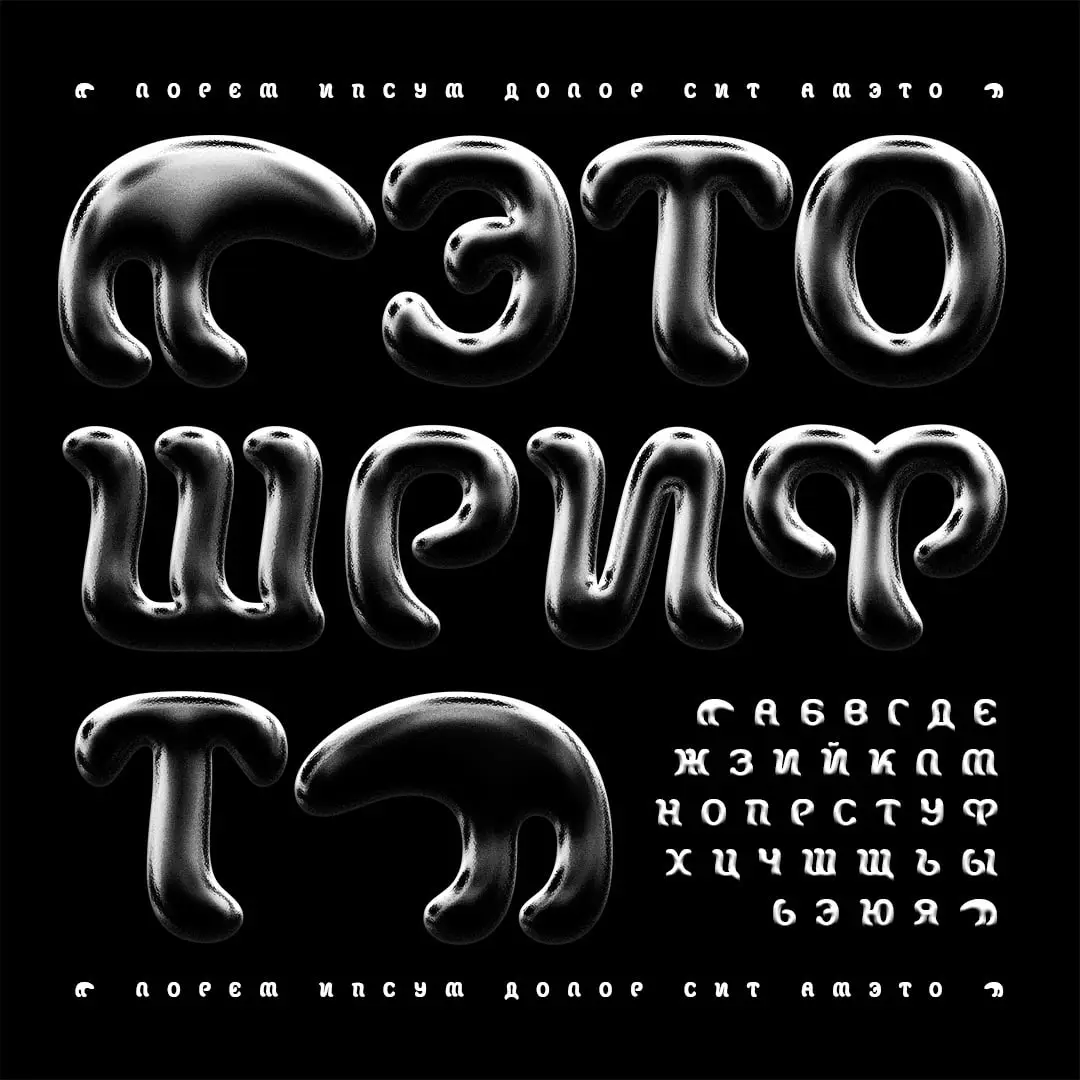
This Is Font is a versatile typeface designed to elevate your design projects. With a variety of styles and weights, it caters to both digital and print applications, making it a perfect choice for branding, logos, and user interfaces.
- Multiple font weights for flexibility in design
- Clean and modern aesthetic suitable for various applications
- Easy to read at both large and small sizes
- Ideal for creating eye-catching logos and branding materials
- Use in web design for a modern, professional look
- Perfect for print projects like business cards and brochures